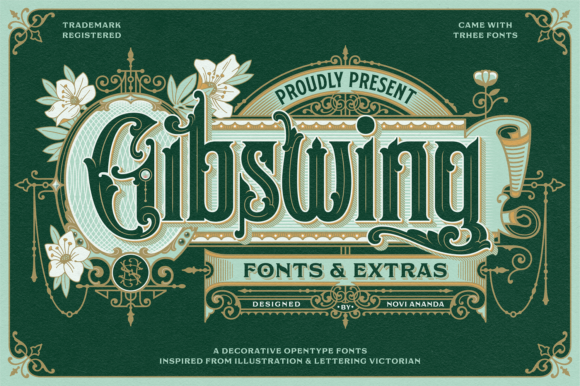
Have you ever stared at a blank canvas, unsure of where to begin, but with a spark of inspiration that refuses to be ignored? That’s exactly what happened to many designers when they laid eyes on the Gibswing Font for the first time.
This cool, bold, and thick lettered display font is more than just a pretty face – it’s a powerful tool designed to elevate your creative projects to the next level. With its PUA encoding, accessing all of the glyphs and swashes is a breeze, allowing you to add a personal touch to your designs with ease.
Whether you’re a seasoned designer or just starting out, the Gibswing Font is a valuable addition to your toolkit, guaranteed to take your creations to new heights.
Gibswing Font Key Features
- Unique Characteristic: The Gibswing Font features a unique blend of modern and vintage elements, giving it a distinctive and eye-catching appearance.
Gibswing Font Review
Overall, I found the Gibswing Font to be a unique and creative addition to any design project. Here are some things that really stood out to me:
- ✨ The font’s quirky, hand-drawn feel adds a touch of whimsy to any text, making it perfect for projects that need a bit of personality.
- ✨ The font’s high contrast and bold lines make it easy to read, even at small font sizes.
- ✨ The font’s flexibility in terms of font weights and styles means you can use it for a wide range of applications, from titles to body text.
- ⚠️ The font may not be suitable for projects that require a more traditional or formal look.
- ⚠️ Some users may find the font’s irregularities to be distracting or hard to read.
- ⚠️ The font may not be optimized for certain languages or character sets, which could limit its use in certain projects.
Overall, I would recommend the Gibswing Font for projects that need a bit of flair and personality. While it may not be suitable for every project, it’s a great choice for designers who want to add a touch of whimsy to their work.
Gibswing Font Practical Application Guide
Tips for Getting the Most Out of Gibswing Font
Use Gibswing Font for titles, headings, and emphasis in designs. Experiment with different font sizes and colors to create visual interest. Combine Gibswing with other fonts for a unique look.
Gibswing Font is ideal for:
– Creative headings and titles
– Emphasis in designs
– Digital signage and advertising
Alternatives to Gibswing Font
The Great Vibes Font is a script font that offers a more elegant and sophisticated look. It is ideal for use in invitations, wedding cards, and other formal events. Great Vibes Font is more ornate and detailed compared to Gibswing Font, which makes it better suited for formal occasions.
Carolyna Pro Font is a modern script font that offers a mix of elegance and playfulness. It is suitable for use in fashion, beauty, and lifestyle branding. Carolyna Pro Font is more versatile and modern compared to Gibswing Font, making it a better choice for brands that want to convey a sense of sophistication and style.
Pacifico Font is a beautiful script font that offers a relaxed and casual look. It is ideal for use in beach-themed branding, travel, and outdoor-related projects. Pacifico Font is more casual and laid-back compared to Gibswing Font, making it a better choice for projects that require a relaxed and beachy vibe.
Dancing Script Font is a playful and elegant script font that offers a whimsical look. It is suitable for use in children’s books, educational materials, and other projects that require a sense of fun and playfulness. Dancing Script Font is more playful and whimsical compared to Gibswing Font, making it a better choice for projects that require a sense of imagination and creativity.